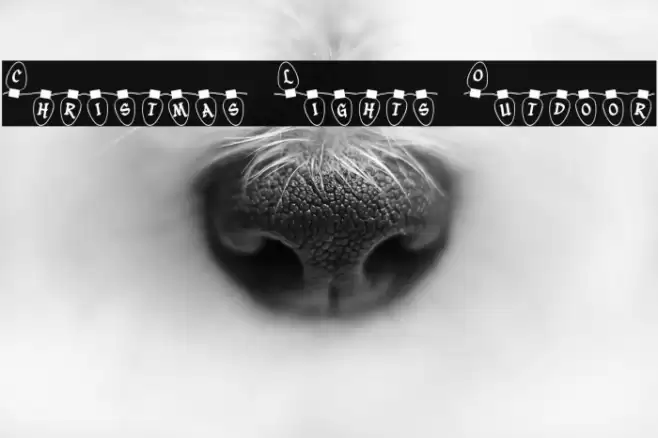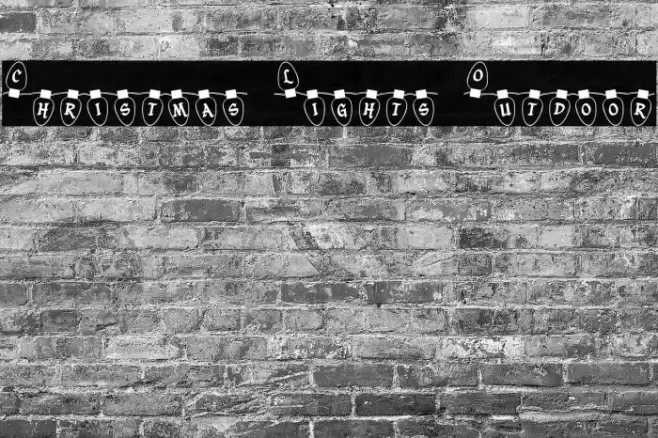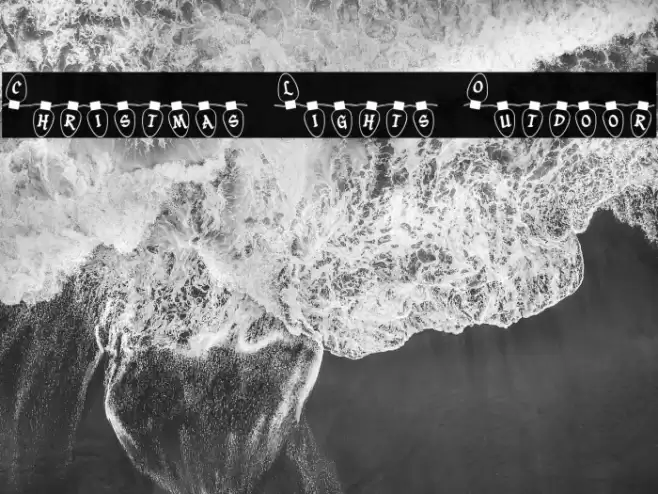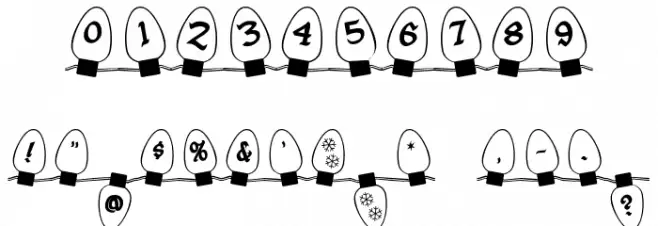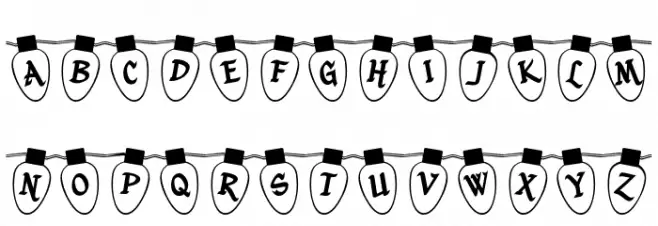
Christmas Lights Outdoor Font
Christmas Lights Outdoor Description
This playful and festive font is designed to resemble letters and numbers encased in Christmas light bulbs. Each character is uniquely crafted with a hand-drawn style, giving it a whimsical and decorative appearance. The letters are uppercase and lowercase, with numbers and a selection of special characters, all maintaining a consistent theme of holiday cheer. The font is perfect for adding a touch of seasonal joy to any project, with its bold and slightly irregular strokes that mimic the look of hand-painted signs. The spacing between characters is normal, ensuring readability while maintaining its decorative charm.
- Proposed Projects: Ideal for holiday cards, festive banners, seasonal advertisements, and decorative posters.